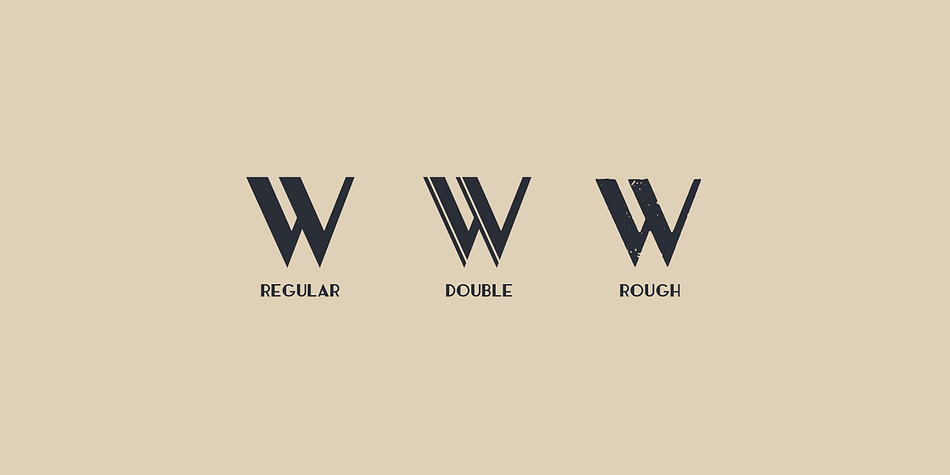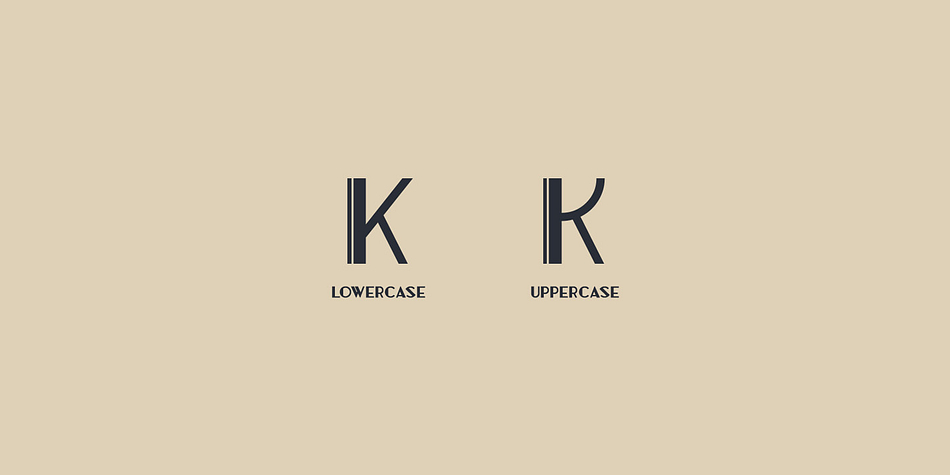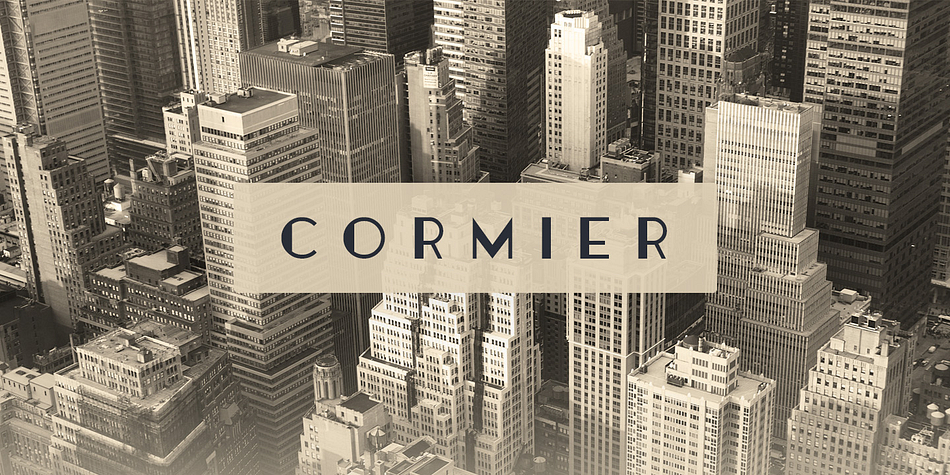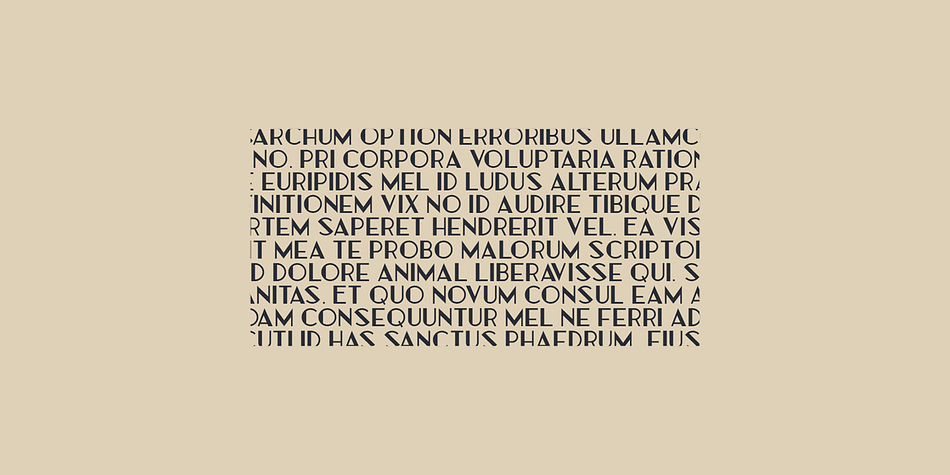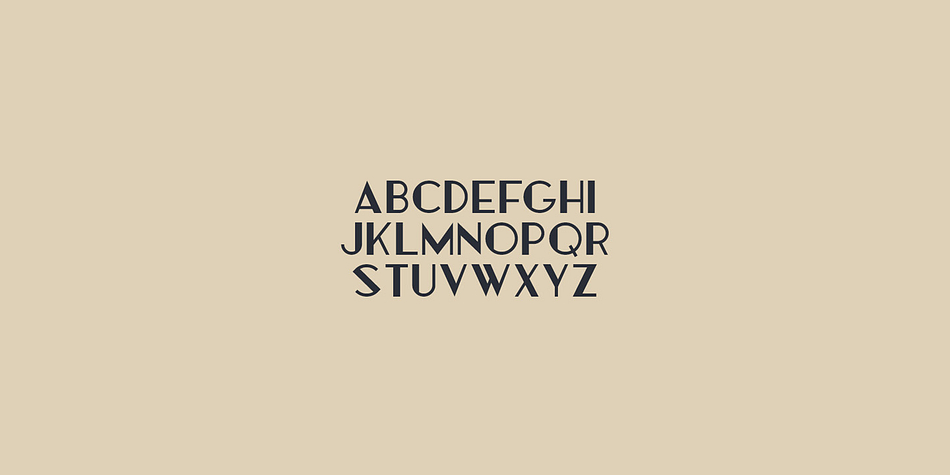
Cormier is a art deco font family. This typeface has three styles and was published by Tugcu Design Co.
Cormier is an Art Deco themed typeface in 3 styles, it was inspired by an old train ticket I found and is named after the architect Ernest Cormier.